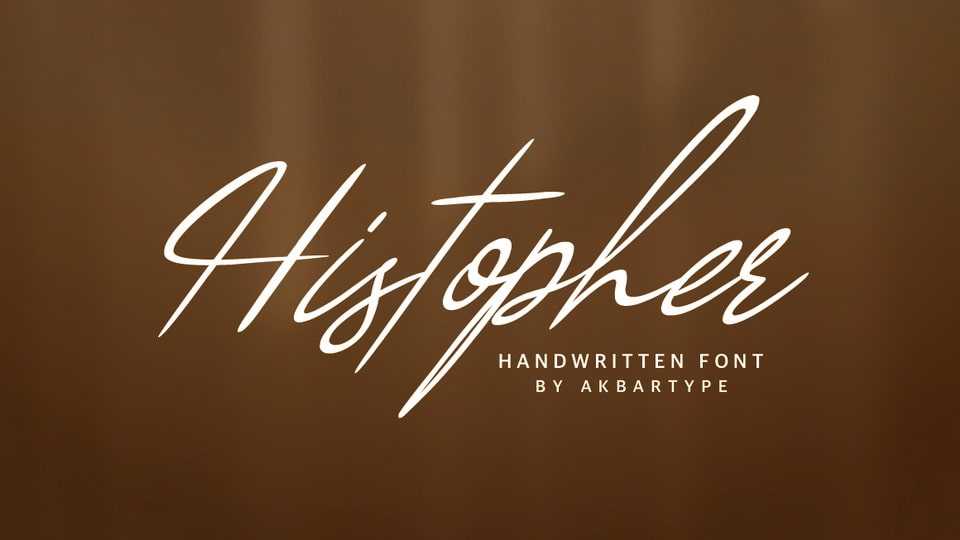
Download Histopher font, a gorgeous and simple handwritten script typeface. Contemporary and fashionable, this elegant font is legible and looks great in a wide variety of contexts!
Designer: Akbartype